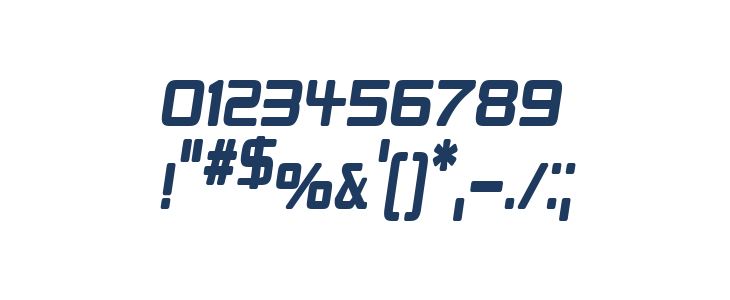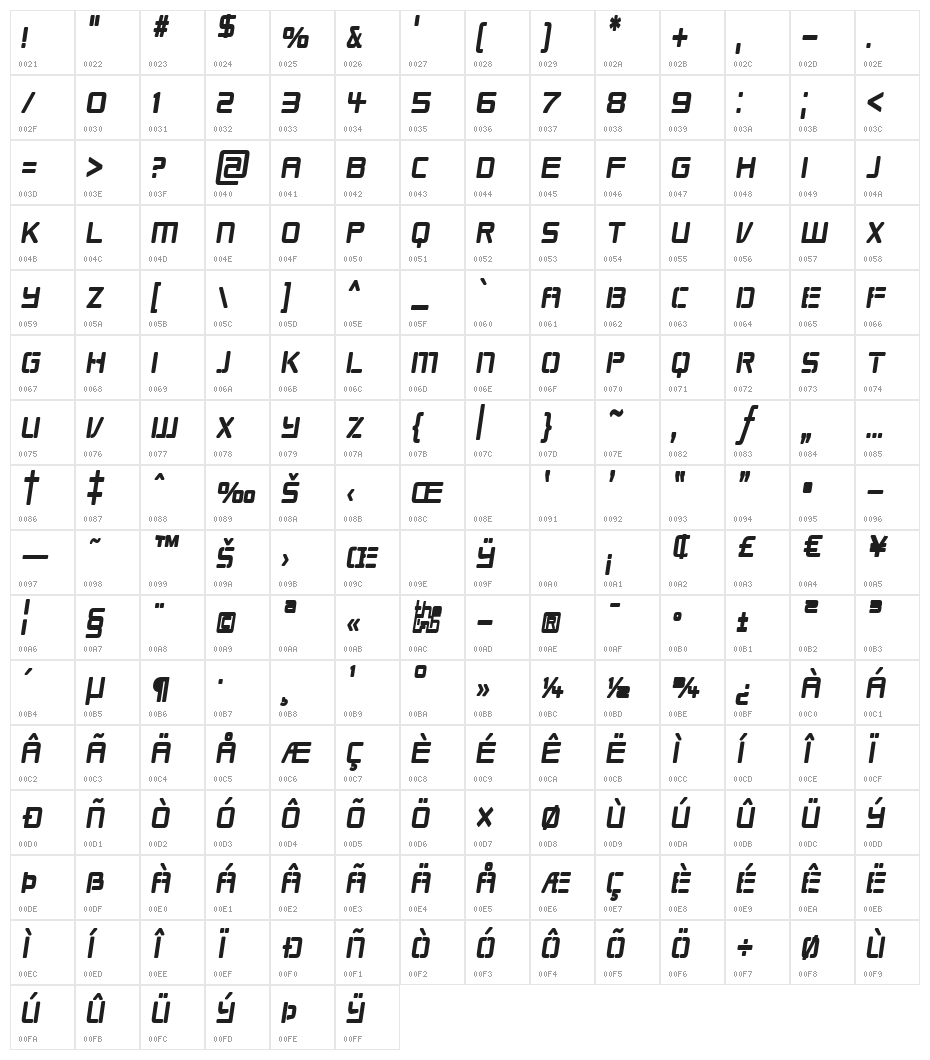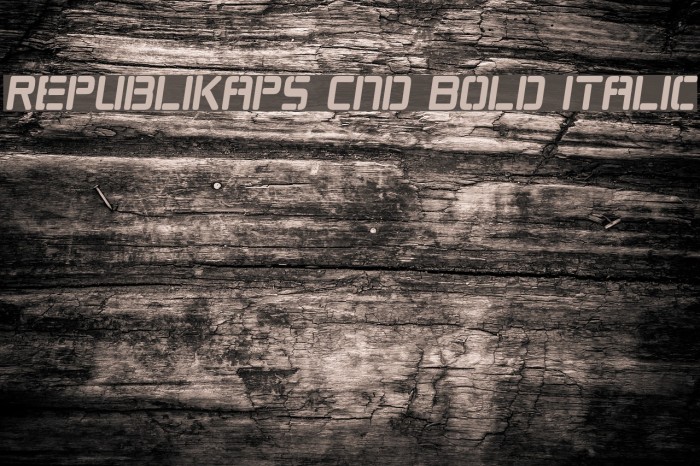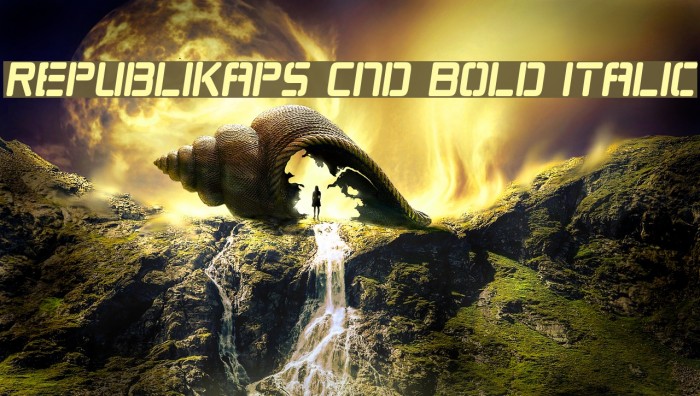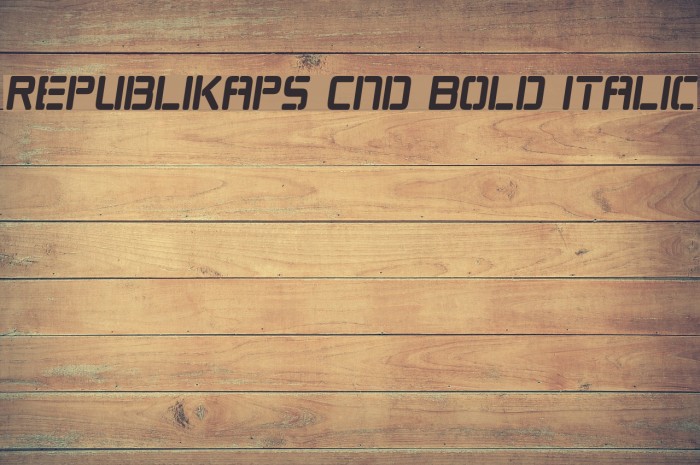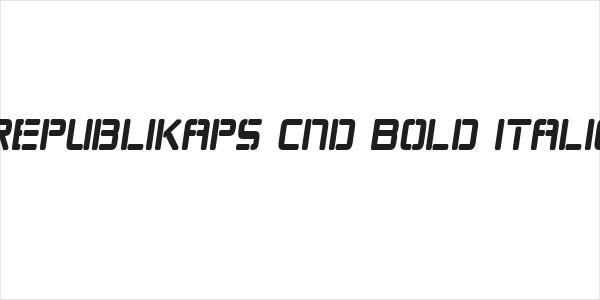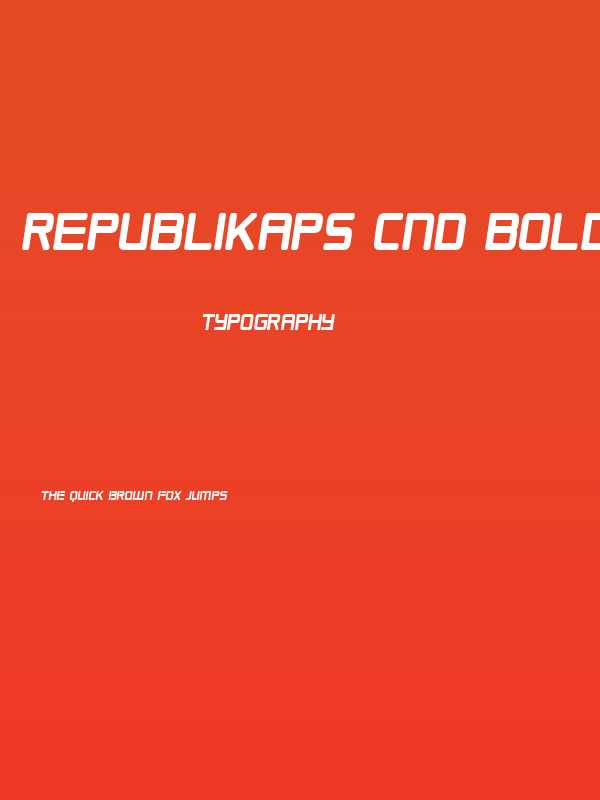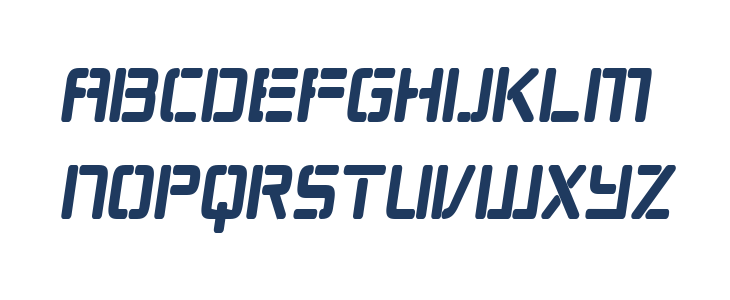
Republikaps Cnd Bold Italic Font
Republikaps Cnd Bold Italic Description
This font features a bold and italicized style with a condensed width, giving it a modern and dynamic appearance. The characters are slightly slanted, enhancing the italic effect, while maintaining a strong and sturdy presence due to the bold weight. The strokes are consistent in thickness, providing a medium contrast that balances readability with style. The overall design is sleek and contemporary, making it suitable for various creative applications. The character spacing is tight, which complements the condensed nature of the font, allowing for efficient use of space without compromising legibility.